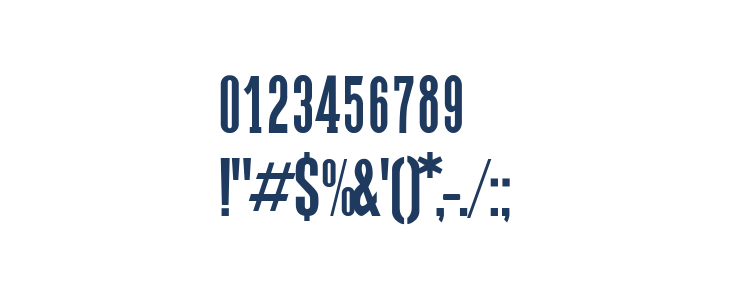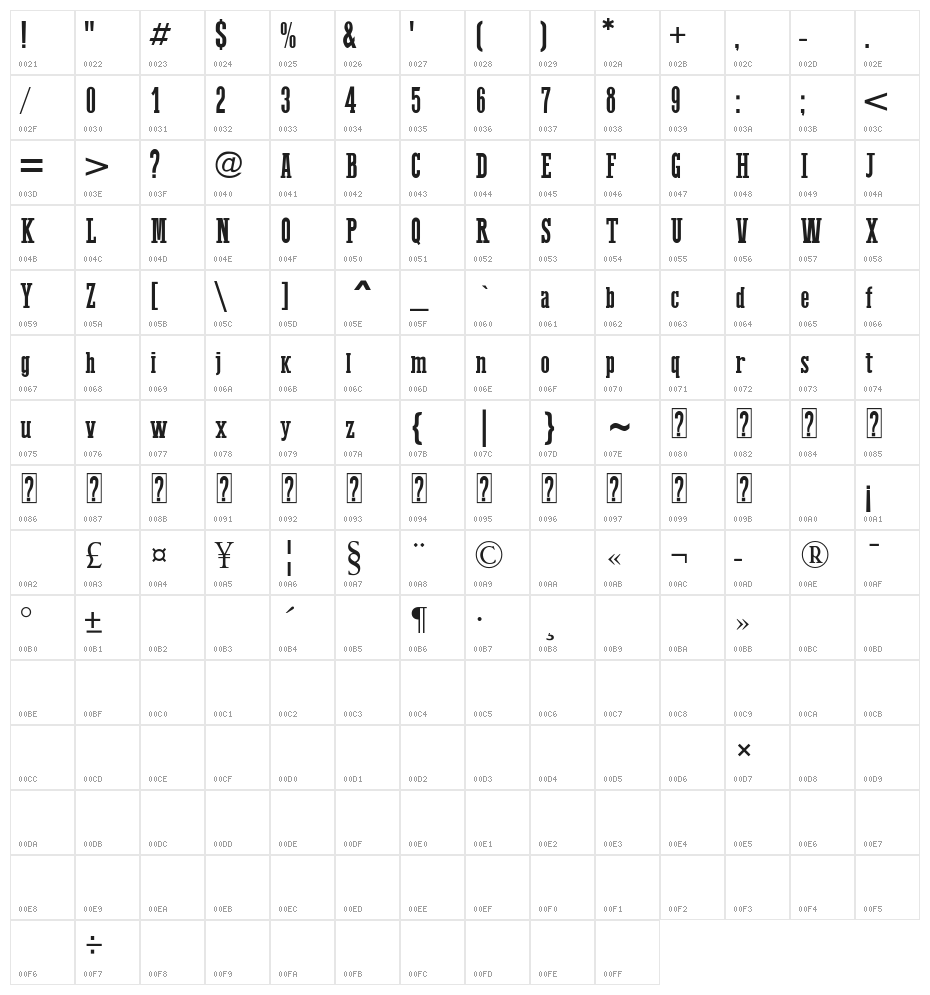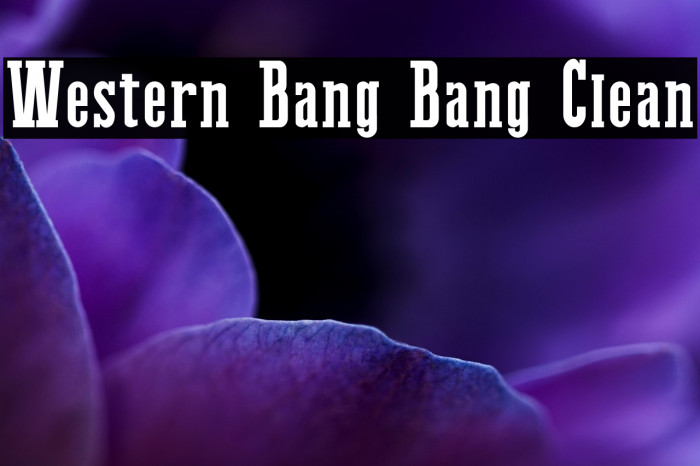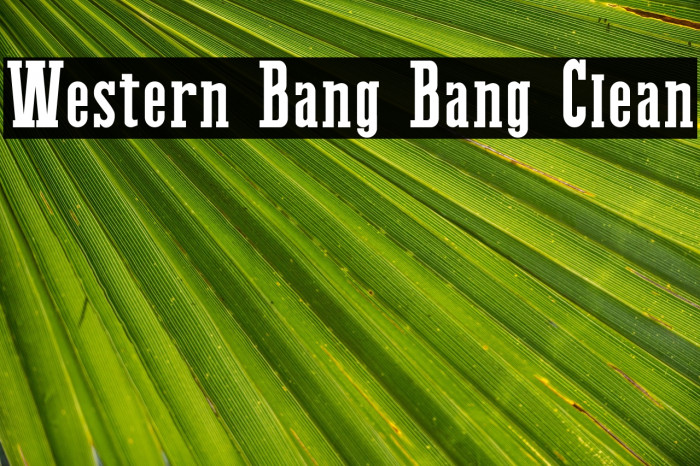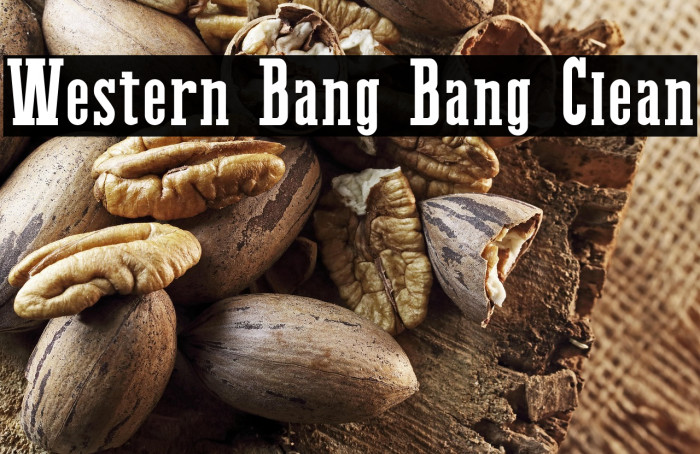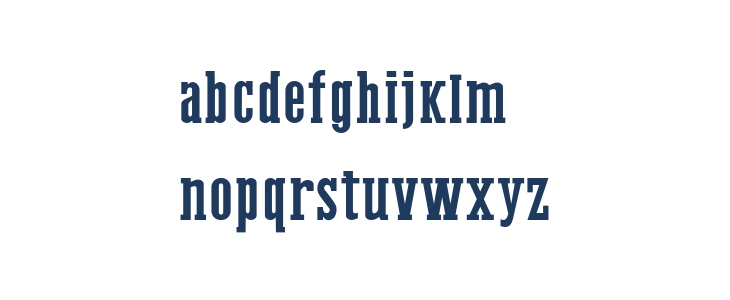
Western Bang Bang Clean Font
Western Bang Bang Clean Description
This font exudes a bold and rugged aesthetic, reminiscent of classic Western typography. The characters are designed with thick, block-like serifs that give them a sturdy and impactful presence. The uppercase letters are particularly striking, with a strong vertical emphasis and wide stance, while the lowercase letters maintain a consistent style that complements the uppercase. The numerals are equally bold, ensuring they stand out in any composition. Special characters are crafted with the same attention to detail, making them suitable for a variety of design needs. Overall, this font captures the essence of the Wild West with a modern twist, making it ideal for projects that require a touch of vintage charm.